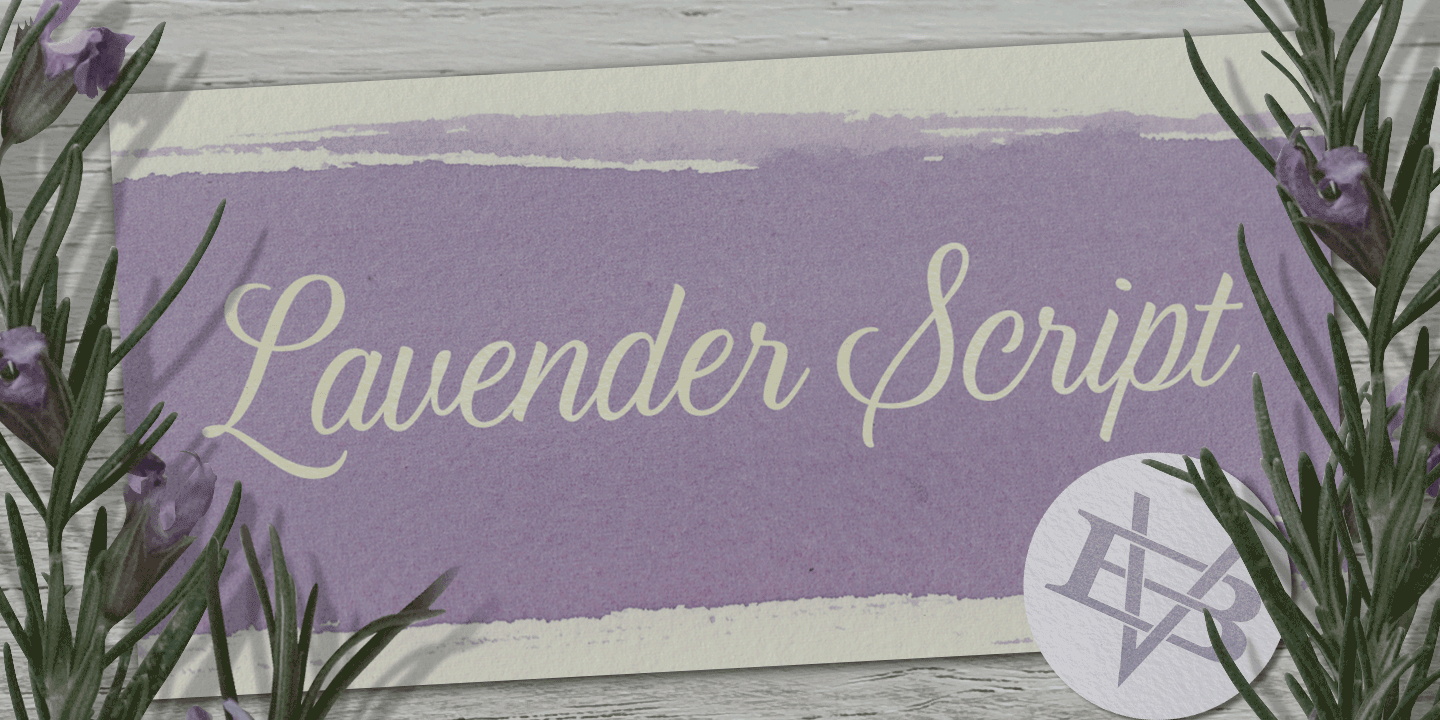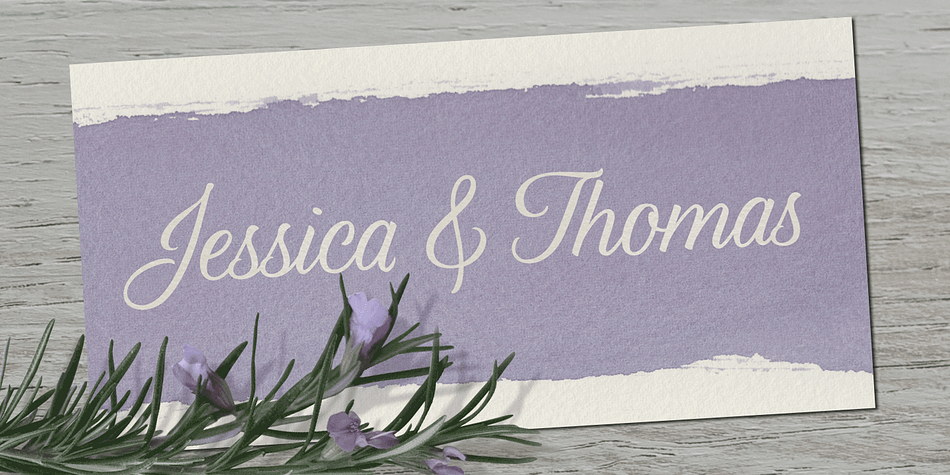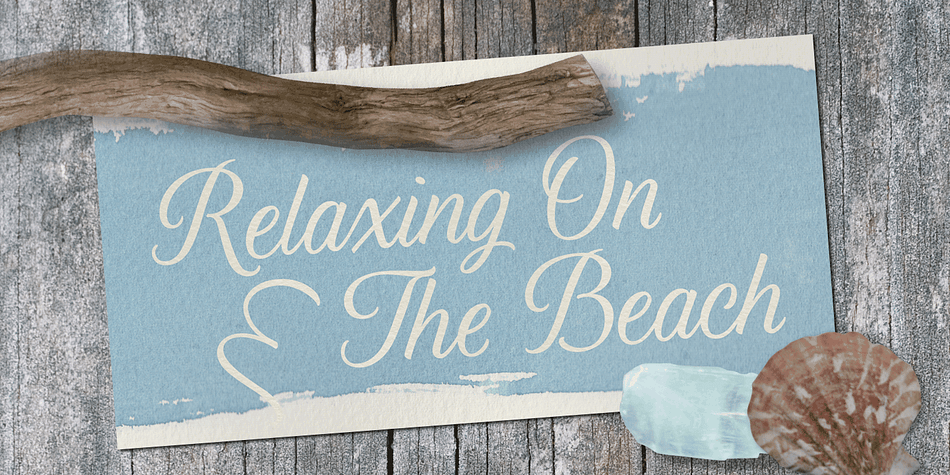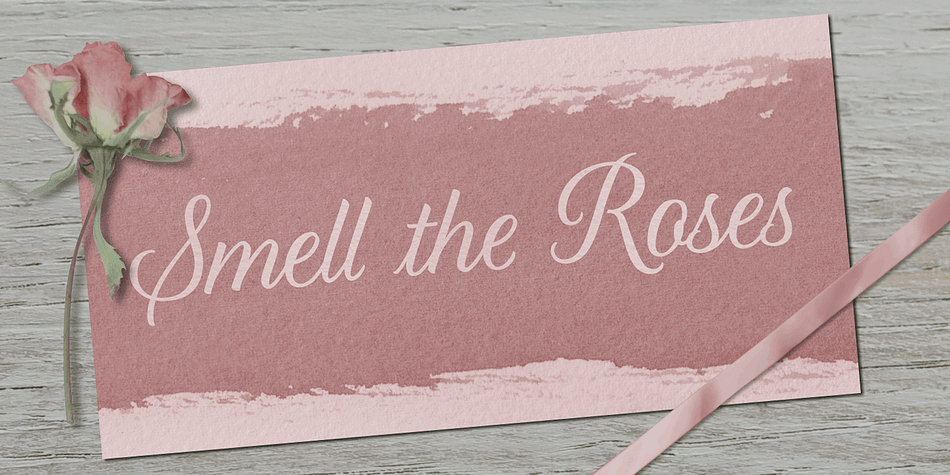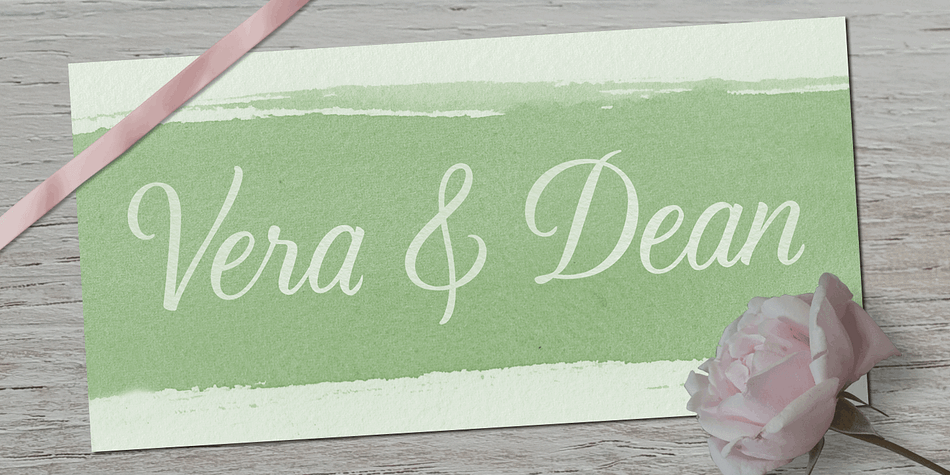
Lavender Script Pro is a script font published by Jess Latham.
Lavender Script is a brush drawn script face done in the copperplate style. It’s not overly flourished so it fits nicely in almost any situation.
It’s loaded with alternates, so you have options.